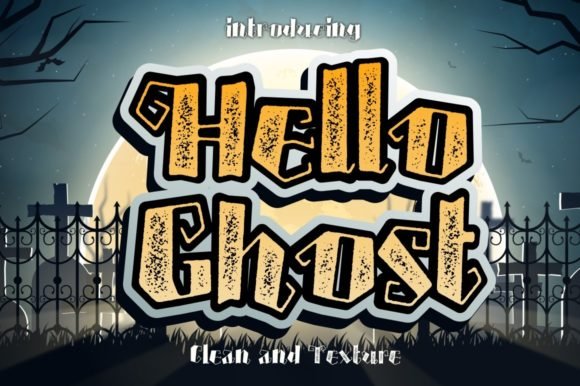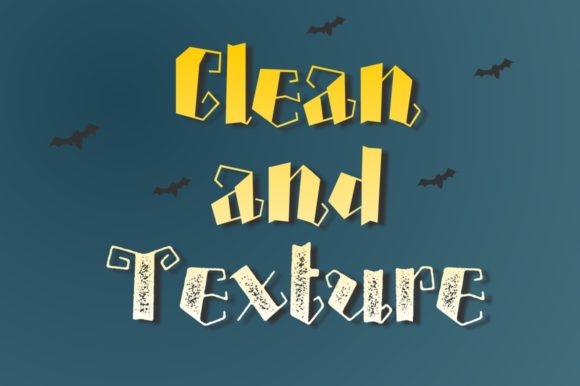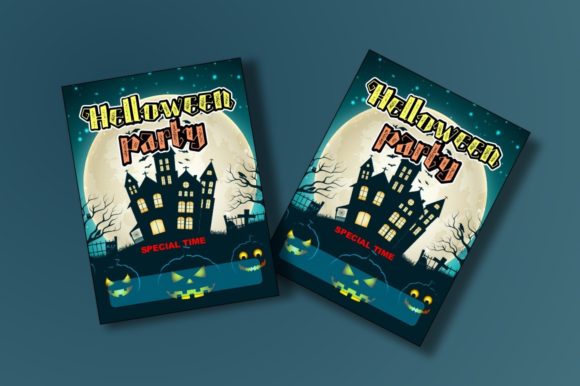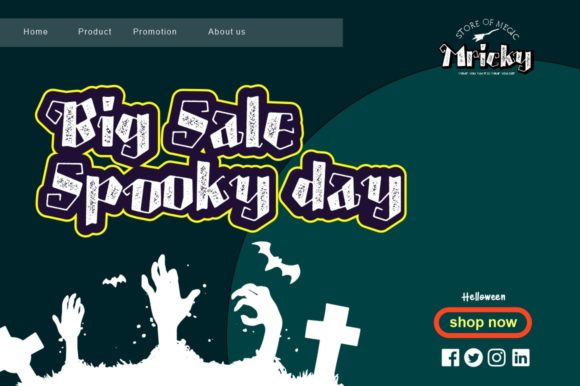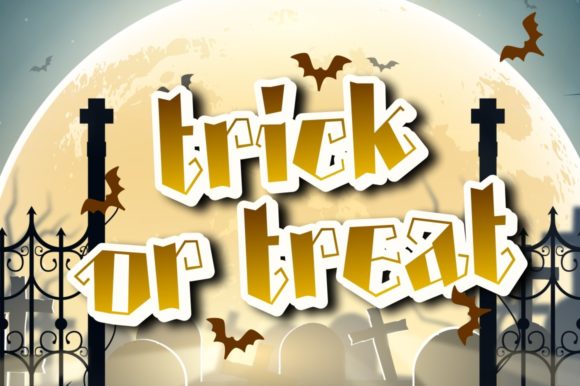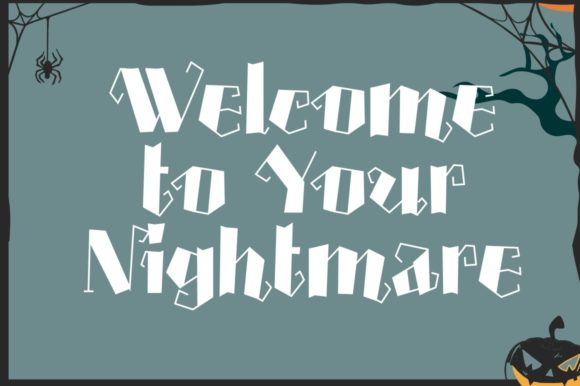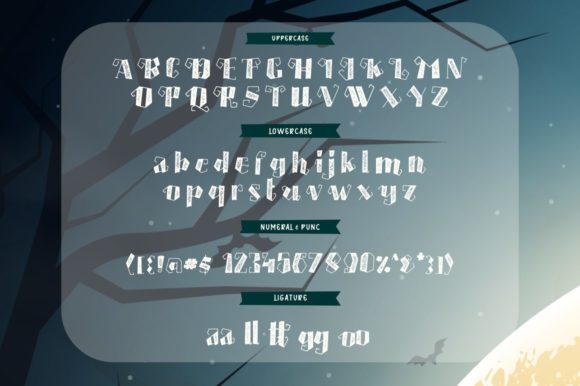
Embracing the Spooky Side of Design
Have you ever found yourself rummaging through a dusty old attic, searching for the perfect prop to add a touch of eeriness to your latest creative project? Maybe you’re crafting a Halloween-themed poster or a spooky short film. Whatever the case, the right font can make all the difference in setting the mood and captivating your audience.
That’s where the Hello Ghost Font comes in – a rough textured and cool display font that exudes both charm and intrigue. Its spooky vibe is perfect for designers looking to add a touch of macabre to their work. With its unique texture and design, this font is sure to make your designs stand out from the crowd. Whether you’re working on a horror-themed project or simply want to add some edge to your branding, the Hello Ghost Font is a valuable addition to any designer’s toolkit.
Hello Ghost Font Key Features
- Unique Characteristics: Hello Ghost Font features a unique blend of modern and vintage elements, with intricate details and subtle textures that evoke a sense of mystery and elegance.
Hello Ghost Font Review
Hello Ghost Font has a lot of charm to it. ✨ The font’s distressed and worn-out feel immediately grabs attention and adds a touch of nostalgia to any design. It’s perfect for creating a vintage or retro aesthetic.
- Wide range of weights and styles, allowing for flexibility in design
- Works well for headings and titles, adding a sense of uniqueness
- Pair well with other distressed fonts or clean sans-serifs
However, Hello Ghost Font also has some limitations. ⚠️ The font can be quite difficult to read, especially at smaller sizes or in body text. This makes it more suitable for headings and titles rather than body text. Additionally, the font’s distressed feel can sometimes be overwhelming, making it harder to use in more subtle designs.
Overall, I think Hello Ghost Font is a great addition to any designer’s toolkit. While it may have some limitations, its unique charm and versatility make it a great choice for the right project. With careful consideration and use, Hello Ghost Font can add a touch of personality and style to any design.
Hello Ghost Font: A Practical Application Guide
Hello Ghost Font is ideal for creating spooky or mystical designs, such as:
– Halloween-themed graphics
– Paranormal-themed posters
– Fantasy-themed book covers
– Horror-themed movie posters
To get the most out of Hello Ghost Font, try:
– Combining it with other spooky or mystical fonts
– Using it with bold, dark colors
– Experimenting with different font sizes and styles
– Adding ghostly effects, such as drop shadows or glow effects
Alternatives to Hello Ghost Font for Designers
The Great Vibes Font is a modern, elegant script font that is perfect for adding a touch of sophistication to your designs. It’s ideal for use in logos, headings, and titles where you want to convey a sense of luxury and refinement.
Compared to Hello Ghost Font, Great Vibes Font has a more polished and refined feel, making it suitable for high-end branding and marketing materials. However, it may lack the quirky, handwritten feel of Hello Ghost Font.
The Alex Brush Font is a beautiful, handwritten script font that is perfect for adding a touch of personality to your designs. It’s ideal for use in quotes, headings, and titles where you want to convey a sense of creativity and individuality.